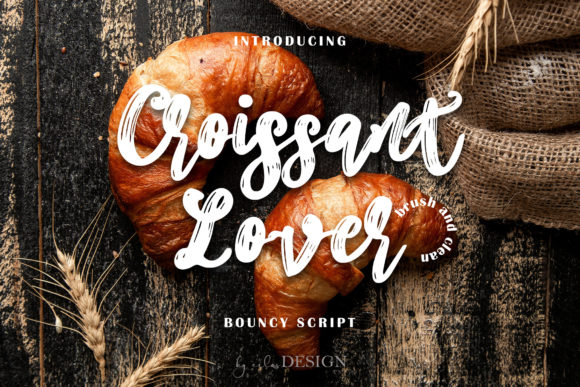
Croissant Lover Font: Elevate Your Designs with a Stylish and Whimsical Brushed Script Font
In the world of typography, a font can make or break a design. When it comes to creating visually appealing and engaging content, the right font can elevate your project from ordinary to extraordinary. If you’re a designer, artist, or simply a creative individual looking for a unique and stylish font to add to your arsenal, then you’re in luck. Introducing Croissant Lover Font, a beautiful, brushed script font that’s sure to become a favorite in your collection.
What is Croissant Lover Font?
Croissant Lover is a stylish and whimsical, brushed script font that’s perfect for adding a touch of elegance and sophistication to any design. With its clean and smooth vibe, this font is ideal for a wide range of projects, from branding and product packaging to invitations, quotes, t-shirts, labels, posters, and logos.
Key Features of Croissant Lover Font
- Stylish and Whimsical Design: Croissant Lover boasts a unique, hand-brushed design that adds a touch of whimsy and playfulness to any project.
- Clean and Smooth Vibe: The font’s clean and smooth lines make it easy to read and perfect for use in a variety of designs.
- Versatile: Croissant Lover is suitable for use in a wide range of projects, from branding and packaging to invitations and quotes.
Perfect for a Variety of Design Projects
Croissant Lover Font is perfect for a wide range of design projects, including:
- Branding: Use Croissant Lover to create a unique and memorable brand identity that sets you apart from the competition.
- Product Packaging: Add a touch of elegance and sophistication to your product packaging with this beautiful font.
- Invitations: Create stunning invitations for weddings, parties, and other special events with Croissant Lover.
- Quotes: Use this font to create inspiring and motivational quotes that will leave a lasting impression on your audience.
- T-Shirts and Apparel: Create eye-catching t-shirts and apparel with Croissant Lover’s stylish and whimsical design.
- Labels and Posters: Use this font to create eye-catching labels and posters that grab attention and communicate your message effectively.
- Logos: Create a unique and memorable logo for your business or brand with Croissant Lover.
Why Choose Croissant Lover Font?
With so many fonts to choose from, why should you choose Croissant Lover? Here are just a few reasons:
- Unique Design: Croissant Lover boasts a unique and stylish design that’s sure to make your projects stand out.
- High-Quality: This font is of exceptionally high quality, making it perfect for use in professional designs.
In conclusion, Croissant Lover Font is a stylish and whimsical, brushed script font that’s perfect for adding a touch of elegance and sophistication to any design. With its clean and smooth vibe, versatile design, and ease of use, this font is sure to become a favorite in your collection. Whether you’re a designer, artist, or simply a creative individual looking for a unique font to add to your arsenal, Croissant Lover is an excellent choice.